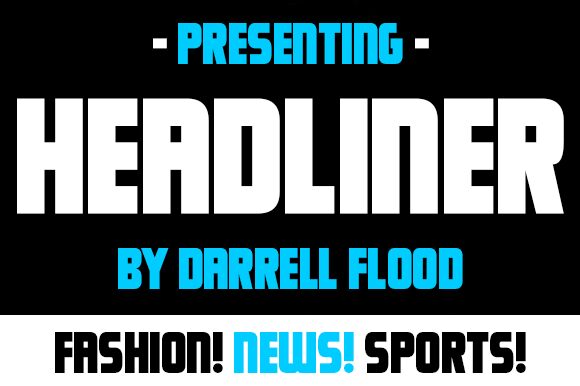
Headliner
Headliner, designed by Darrell Flood, is a modern sans serif font. It's perfect for creating sleek and stylish logos, posters, headlines and other design projects that require an eye-catching touch.